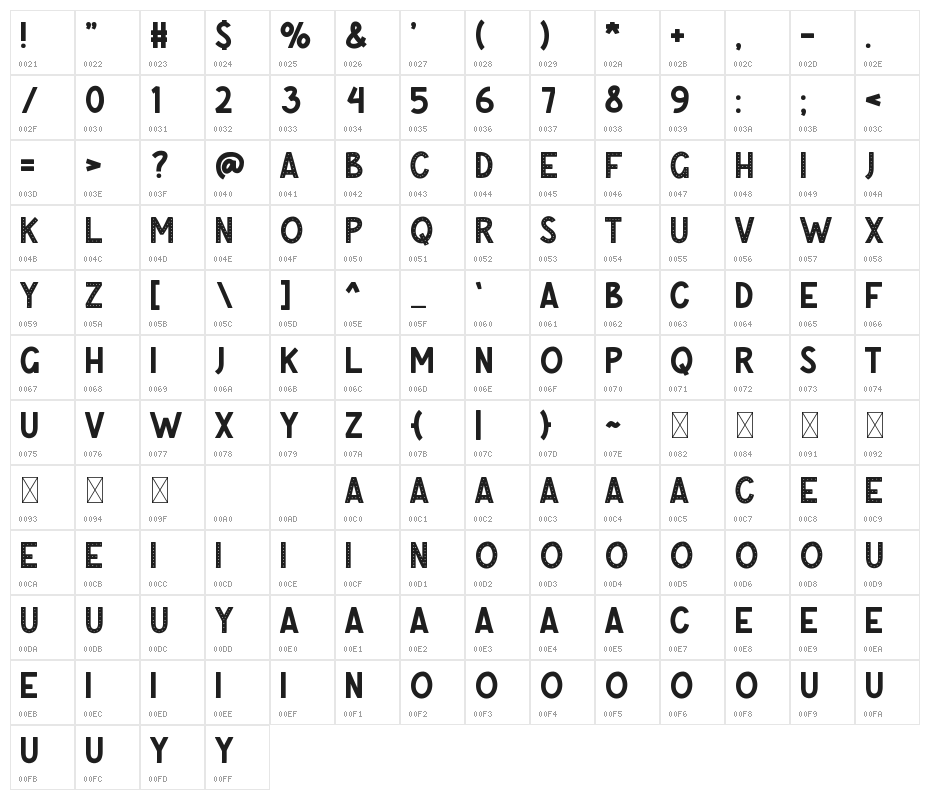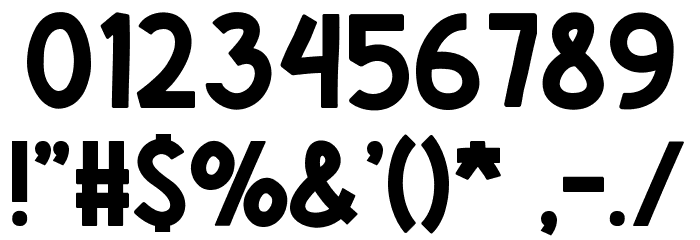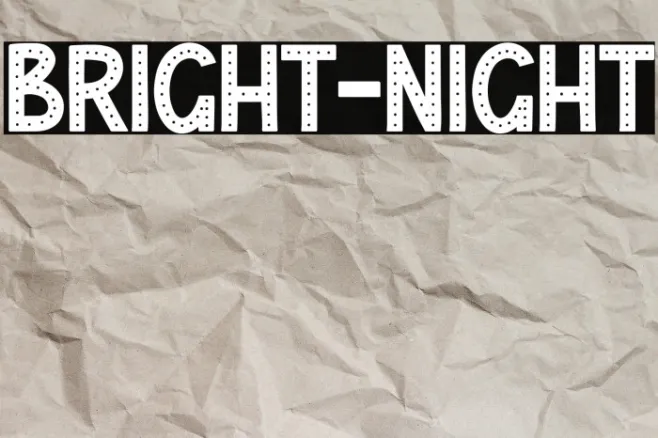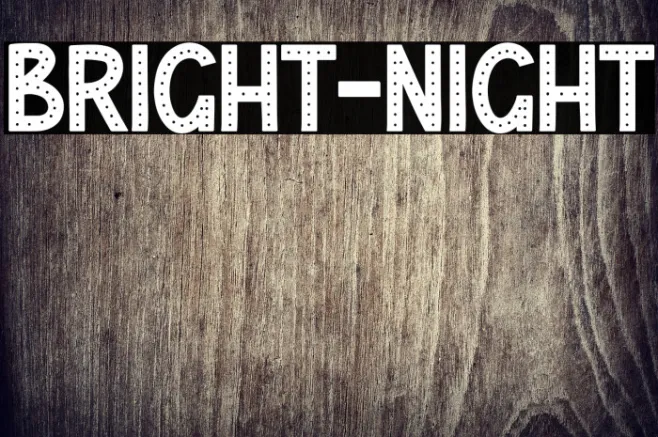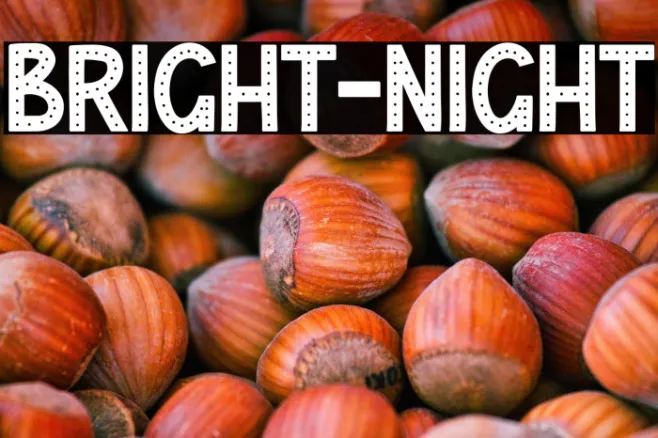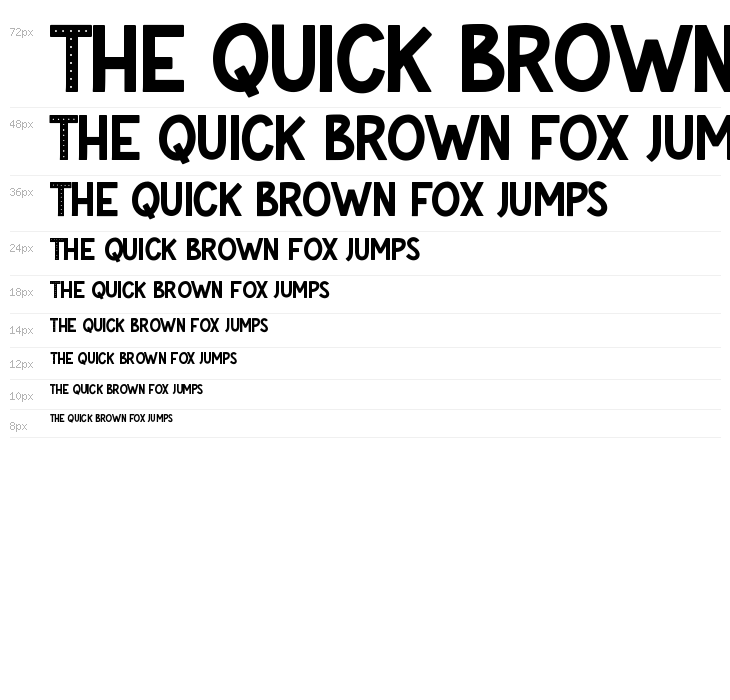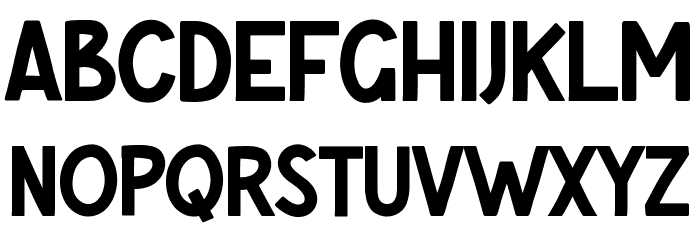
BRIGHT-NIGHT Font
BRIGHT-NIGHT Description
This font features a bold and modern design with a distinct dotted pattern on the uppercase letters, creating a marquee or illuminated effect. The characters are sans-serif, offering a clean and straightforward appearance. The uppercase letters are particularly striking with their decorative dots, while the lowercase letters maintain a solid, bold style. Numbers and special characters follow the same bold, sans-serif style, ensuring consistency across all elements. The font's design is both eye-catching and versatile, suitable for various creative applications.